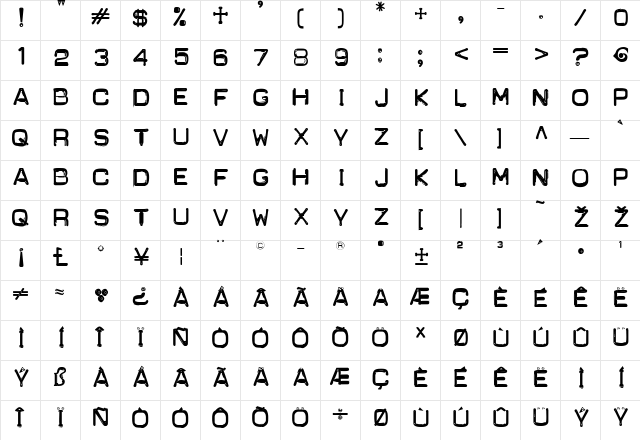
Complete Carbon-14 Stout Regular glyph index. Displaying only characters natively supported by Carbon-14 Stout Regular font.
Carbon-14 Stout is a composed and adaptable typeface that performs quietly and consistently across a wide range of design contexts.